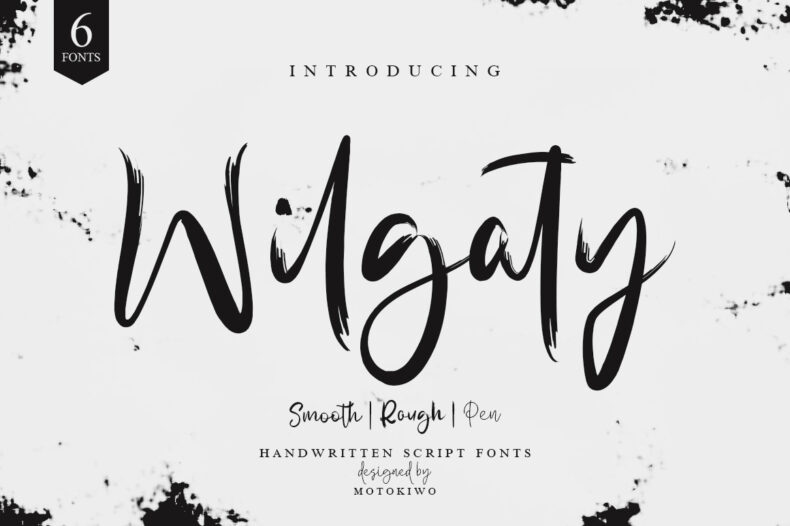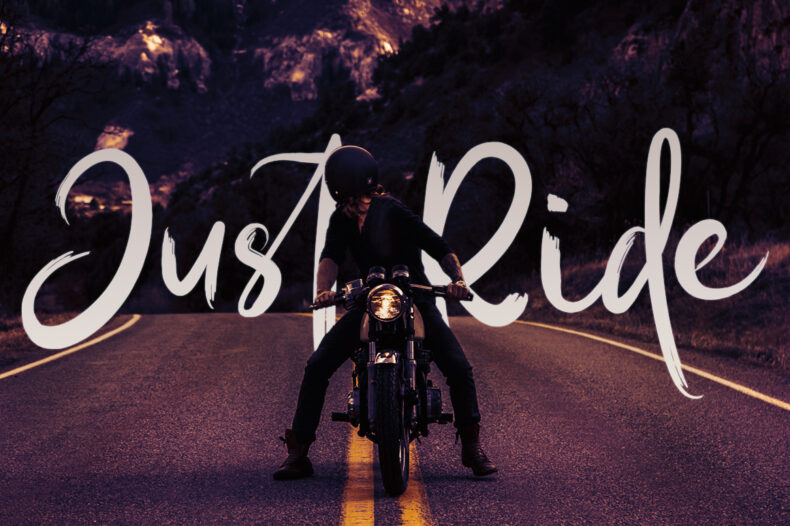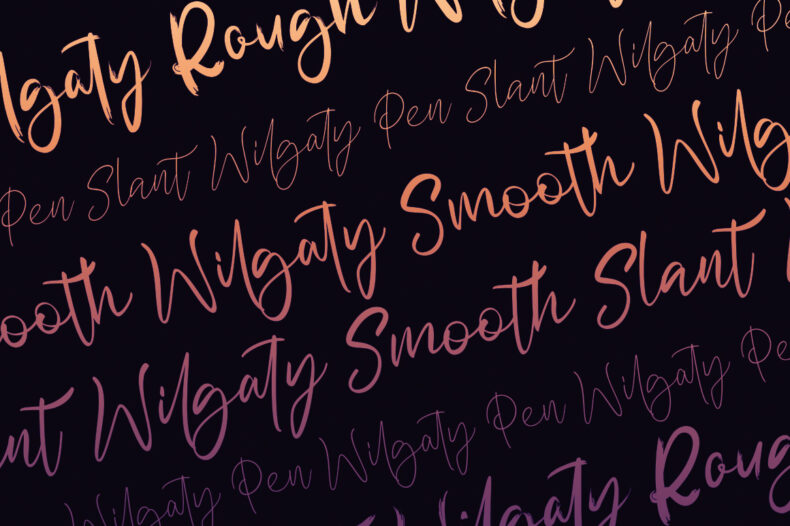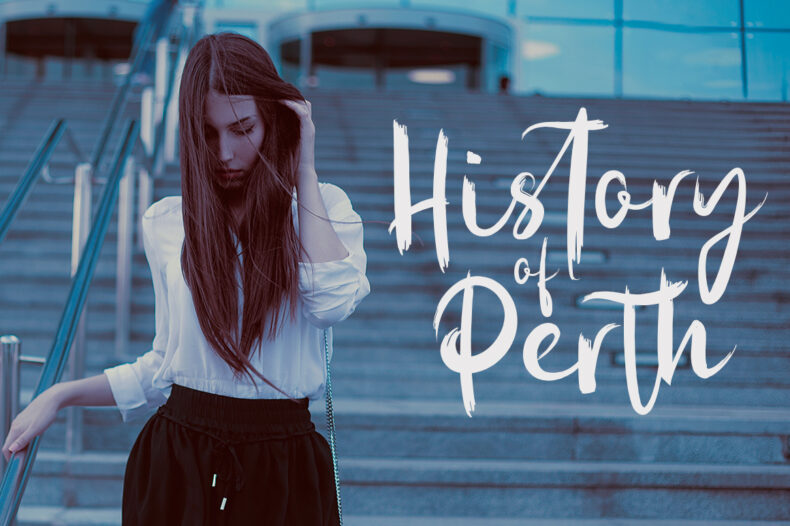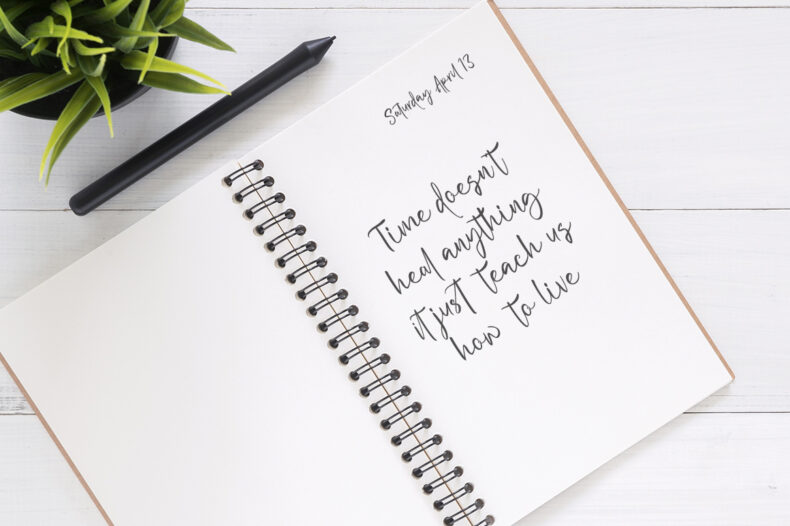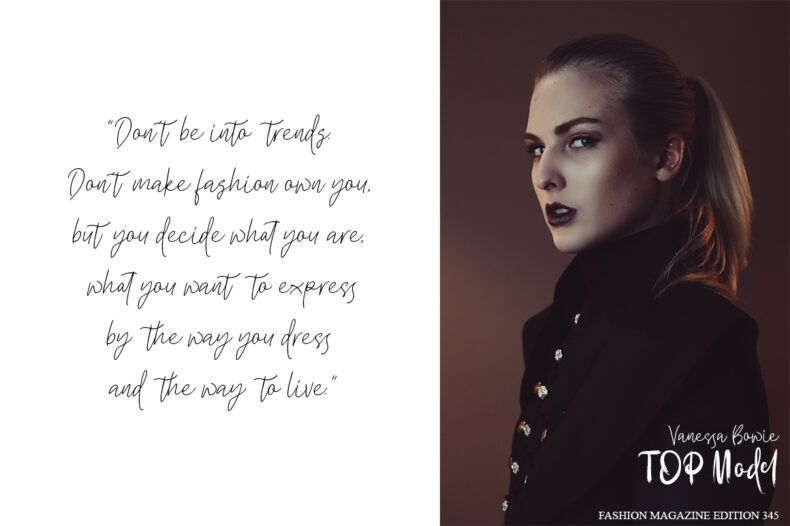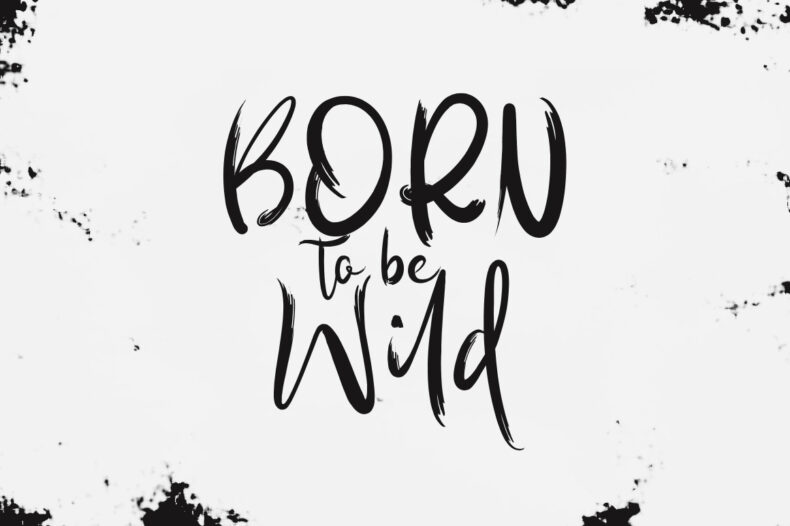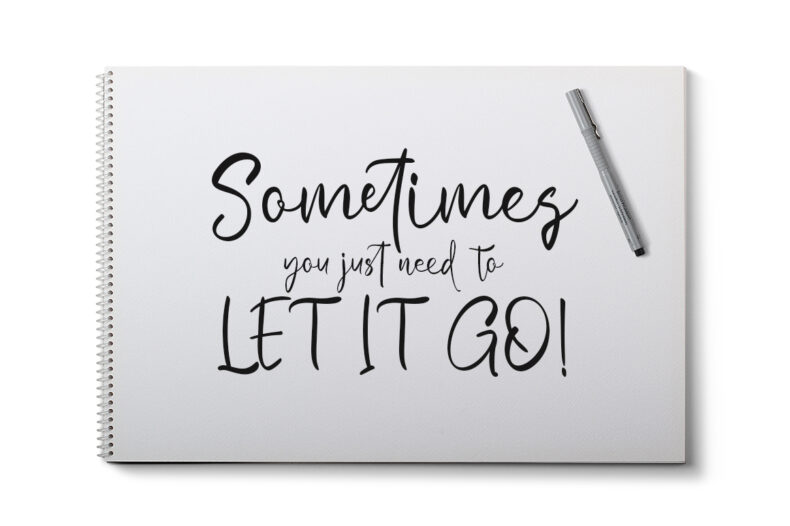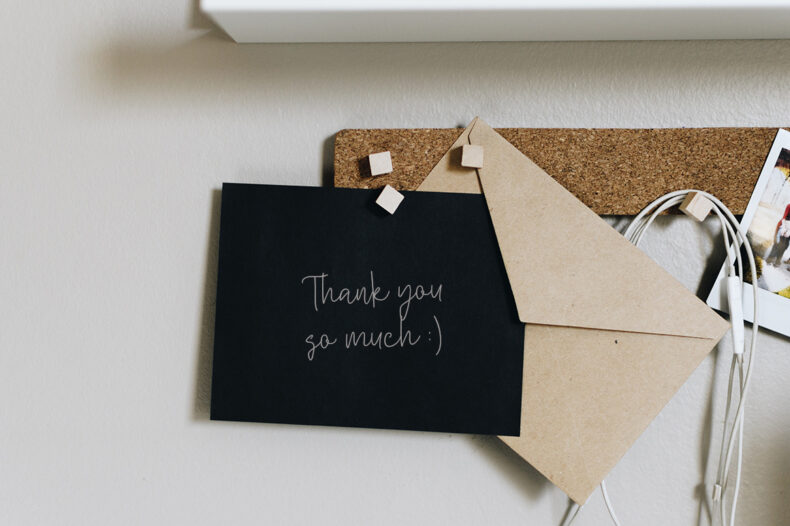
Wilgaty is a handwritten script font with three stroke variants. It lets you explore different stroke treatments while keeping a related writing style.
Choose Wilgaty when you want to compare several interpretations of the same handwritten direction. A change of stroke treatment can shift the feel of a name, quotation, or short branding message without moving to an unrelated typeface.
Try the available variants with the exact words in your project, then choose the treatment that fits the artwork and output size. Keep supporting typography simple to make the difference between the strokes clear.